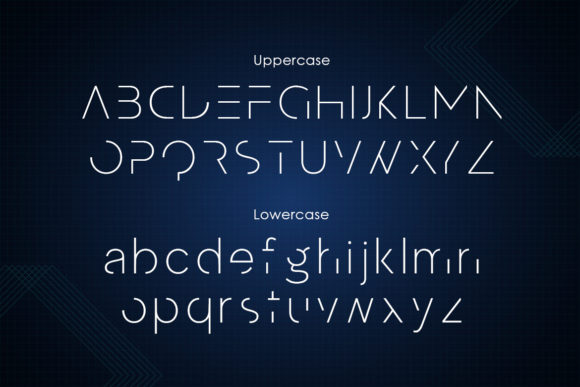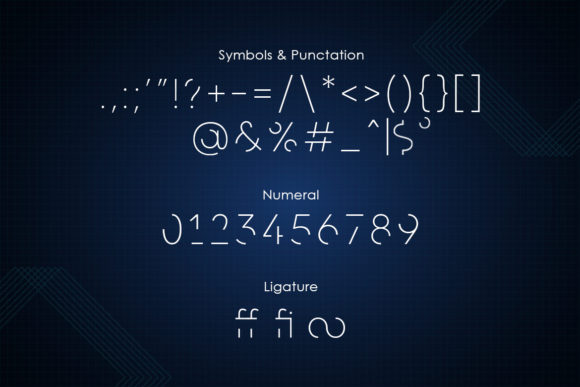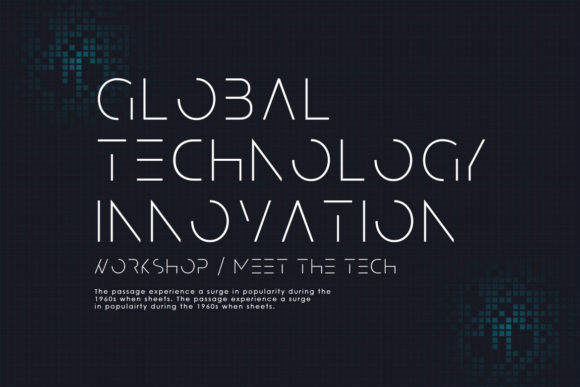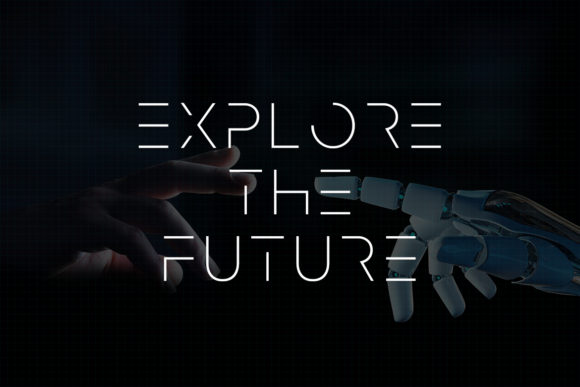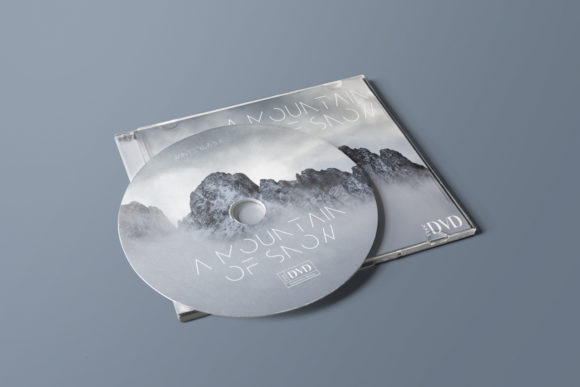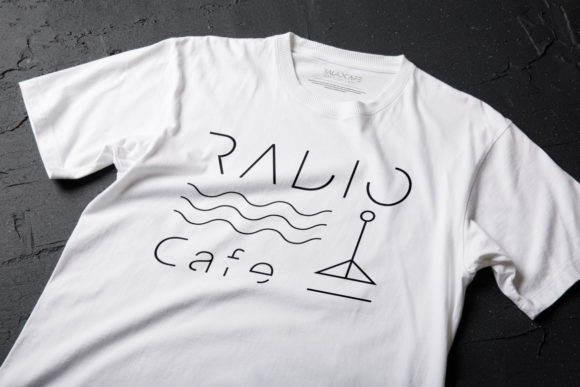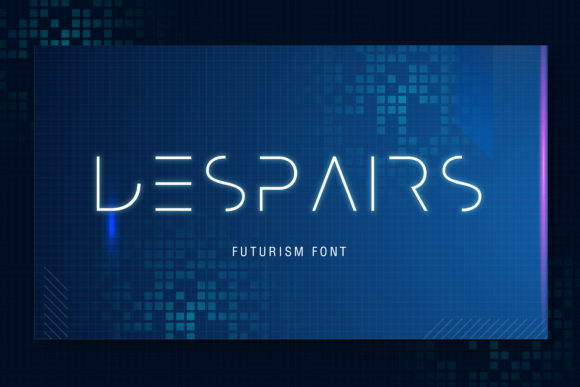
Introducing Despairs Font: The Ultimate Futuristic Display Font
Are you tired of using the same old fonts in your designs? Look no further than Despairs Font, a futuristic and thin lettered display font that’s sure to take your creations to the next level. With its clean and smooth vibe, Despairs Font is the perfect addition to any design project, from modern branding to sleek advertising materials.
What Makes Despairs Font Stand Out?
Despairs Font is a unique and stylish font that’s designed to make a statement. Its thin lettering gives it a sleek and modern look that’s perfect for designs that require a touch of sophistication. The font’s clean lines and smooth curves make it highly legible, even at small sizes, making it versatile for use in a variety of applications.
Key Features of Despairs Font
• Futuristic Design: Despairs Font has a distinctly futuristic feel that’s perfect for designs that require a modern edge.
• Thin Lettering: The font’s thin lettering gives it a sleek and sophisticated look that’s perfect for headlines, titles, and other display text.
• Clean and Smooth: The font’s clean lines and smooth curves make it highly legible and visually appealing.
• Versatile: Despairs Font can be used in a variety of applications, from branding and advertising to packaging and web design.
Why Designers and Crafters Love Despairs Font
Despairs Font has quickly become a favorite among designers and crafters, and for good reason. Its unique and stylish design makes it perfect for adding a touch of personality to any design project. Here are just a few reasons why designers and crafters love Despairs Font:
Easy to Read and Legible
One of the biggest advantages of Despairs Font is its high legibility. The font’s clean lines and smooth curves make it easy to read, even at small sizes. This makes it perfect for use in designs where text needs to be clear and concise, such as in instructions, labels, or other materials where readability is key.
Perfect for Branding and Advertising
Despairs Font is also perfect for use in branding and advertising materials. Its futuristic design and thin lettering give it a modern and sophisticated look that’s perfect for companies that want to stand out from the competition. Whether you’re designing a logo, brochure, or website, Despairs Font is sure to make a lasting impression.
Great for Crafting and DIY Projects
Despairs Font is also a great choice for crafters and DIY enthusiasts. Its unique and stylish design makes it perfect for use in a variety of crafting projects, from handmade cards and invitations to DIY signs and decorations.
How to Use Despairs Font in Your Designs
Pair it with Other Fonts
Despairs Font pairs well with a variety of other fonts, from bold and chunky fonts to elegant and cursive fonts. Experiment with different pairings to find the one that works best for your design.
Use it for Headlines and Titles
Despairs Font is perfect for use in headlines and titles, where its thin lettering and futuristic design can really make an impact.
Experiment with Different Sizes and Colors
Don’t be afraid to experiment with different sizes and colors of Despairs Font. Its clean and smooth design looks great in a variety of sizes and colors, from bold and bright to subtle and muted.
In conclusion, Despairs Font is a futuristic and thin lettered display font that’s perfect for designers and crafters who want to add a touch of personality to their designs. Its clean and smooth vibe makes it highly legible and visually appealing, while its versatile design makes it suitable for use in a variety of applications. Whether you’re designing a logo, brochure, or handmade card, Despairs Font is sure to make a lasting impression.